If you’re looking for some laid-back, sunny vibes in your designs this summer, you’ve come to the right place. Our guide offers you a selection of 17 beachy Canva fonts that are perfect for adding a touch of coastal charm to your projects. Each of these fonts brings a unique element to beach-themed designs, enhancing the overall aesthetic with their distinctive styles and features. These fonts offer a variety of styles and themes inspired by the beach and summer, perfect for creating vibrant and engaging.
1. Amatic SC
Why it’s Beachy font: Amatic SC is a quirky, hand-drawn font that feels personal and informal. Its thin lines and tall letters give it a light, airy feel that is reminiscent of a message scrawled in the sand. Its casual, carefree vibe is perfect for informal beach event signage or fun, laid-back apparel designs.
2. Arvo
Why it’s Beachy font: Arvo is a geometric slab serif that combines clarity with style. It’s bold and very readable, which makes it versatile for both text and headlines. The sturdy appearance of Arvo evokes the robust nature of beachside structures like piers and lifeguard stands, making it ideal for more structured beach-themed graphics.
3. Beach Resort
Why it’s Beachy font: As the name suggests, Beach Resort is explicitly designed with a beach theme in mind. It often features playful, informal letterforms with soft edges. This font screams beach vacation and is a no-brainer for any material that aims to convey the fun and relaxation of a beach resort.
4. Comfortaa
Why it’s Beachy font: Comfortaa is a rounded geometric sans-serif typeface that looks modern and is easy on the eyes. It’s smooth and clear, which ensures legibility at any size. Its soft, rounded curves mimic the gentle roundness of beach pebbles and the calm horizon line over ocean waves.
5. Courgette
Why it’s Beachy font: Courgette is a medium-contrast, brushy, italic script font that has a very friendly and readable form. The relaxed and fluid style of Courgette resembles casual beach café signage, perfect for evoking a breezy, seaside atmosphere.
6. Dancing Script
Why it’s Beachy font: Dancing Script is a lively cursive font that captures the dynamic flow of dancing on the beach. Its letters bounce and change size slightly, which adds a personal touch. It mimics the rhythm and freedom of dancing waves and carefree beach days.
7. Grand Hotel
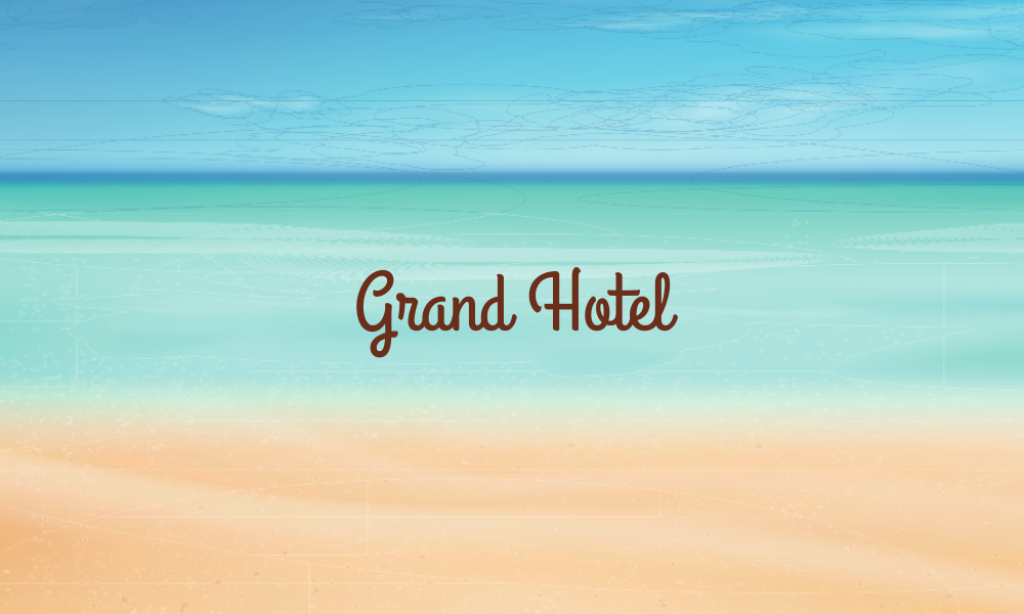
Why it’s Beachy font: Grand Hotel is a curvy, cursive font that recalls the retro glamour of 1930s beach resorts. It’s very fluid and has a timeless charm. It brings a touch of nostalgic elegance, perfect for vintage-themed beach posters or classy seaside wedding invitations.
8. Kaushan Script
Why it’s Beachy font: Kaushan Script feels like it’s been written quickly with a sharp pen, featuring slightly irregular shapes and a fresh, handcrafted appeal. Its rough edges and dynamic form convey a sense of spontaneity and adventure, akin to a breezy day on the beach.
9. Merriweather
Why it’s Beachy font: Merriweather is a serif font designed to be highly readable on screens. It features wide counters and a robust texture that ensures clarity even at small sizes. Its sturdiness and clarity make it suitable for more informative beach-themed content, like guides or beach safety signage.
10. Niconne
Why it’s Beachy font: Niconne is a beautiful, elegant font based on the calligraphy of the early 20th century. It has soft, rounded edges and a personal touch. Its elegance and warmth make it perfect for romantic beach wedding invitations or upscale beach events.
11. Pacifico
Why it’s Beachy font: Pacifico is a fun, cursive script that was inspired by American surf culture in the 1950s. It’s bold and very legible. With its flowy, carefree feel, it’s ideal for anything that needs a laid-back, sunny vibe, like beach apparel or themed parties.
12. Point
Why it’s Beachy font: Point is a simple, clean sans-serif that comes across as modern and unassuming. Its geometric structure provides excellent readability. Its minimalistic style works well in contemporary beach designs, adding a modern twist to traditional themes.
13. Raleway Dots
Why it’s Beachy font: Raleway Dots is a dotted-line version of the Raleway font which adds a playful, decorative element to the clean lines of the original. The dots can evoke the sandy texture of beaches or the sparkles on ocean water, making it fun for children’s beach activities or casual beach gear.
14. Satisfy
Why it’s Beachy font: Satisfy blends the classic with the casual, creating a script that’s both friendly and elegant. Its fluid, easy-going style is perfect for evoking that leisurely beach walk or sunset viewing.
15. Shadows Into Light
Why it’s Beachy font: Shadows Into Light is a neat handwriting font that feels intimate and sincere. Its clean lines and simple form make it highly legible. It’s like a note written in a beach journal, personal and reflective of sunny days spent by the sea.
16. TAN Summers
Why it’s Beachy font: TAN Summers is designed to embody the essence of summer with its informal and laid-back style. It often appears slightly worn or textured. This font is ideal for emulating the sun-baked textures and casual vibe of summer beach days.
17. Tangerine
Why it’s Beachy font: Tangerine is an elegant calligraphy font that flows smoothly, with sharp rises and falls like the waves of the sea. Its sophistication and fluid motion make it suitable for high-end beach-themed events or luxurious seaside resorts.